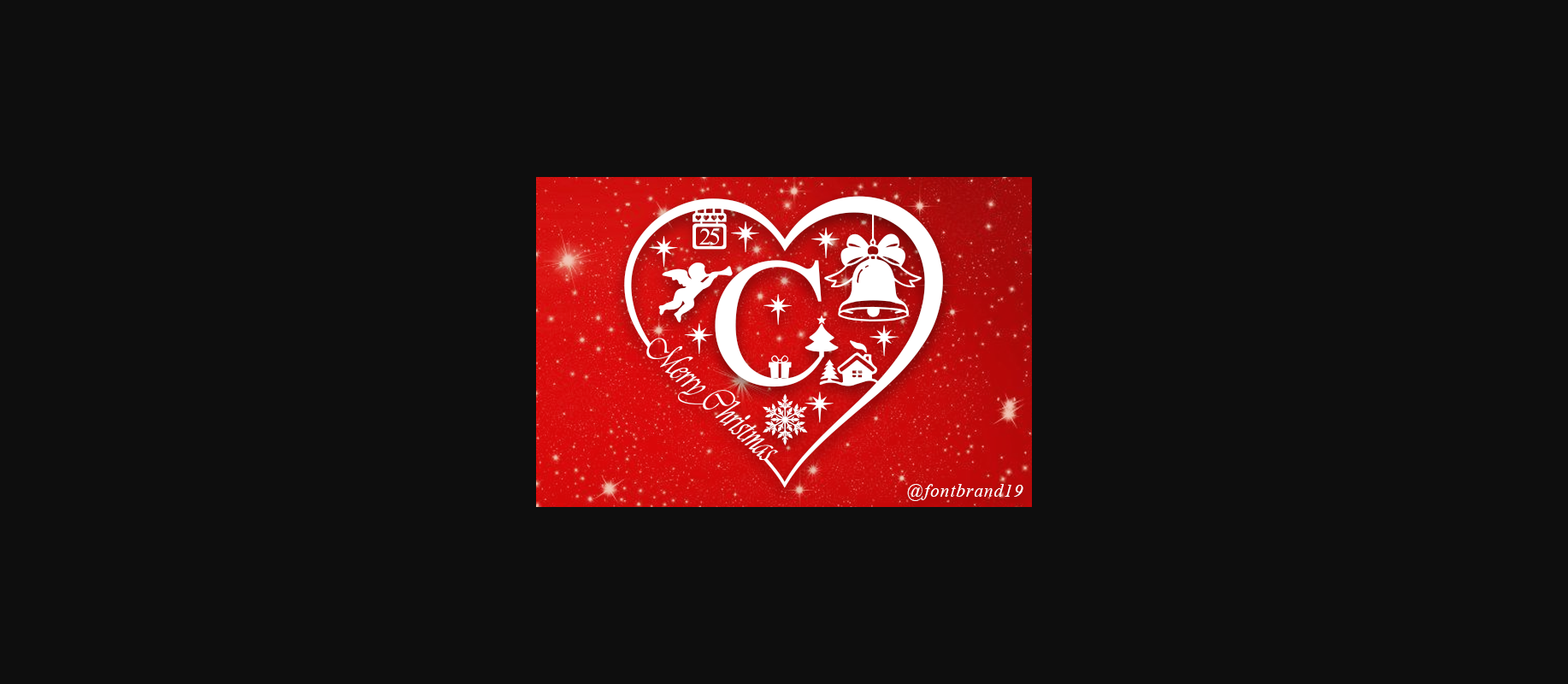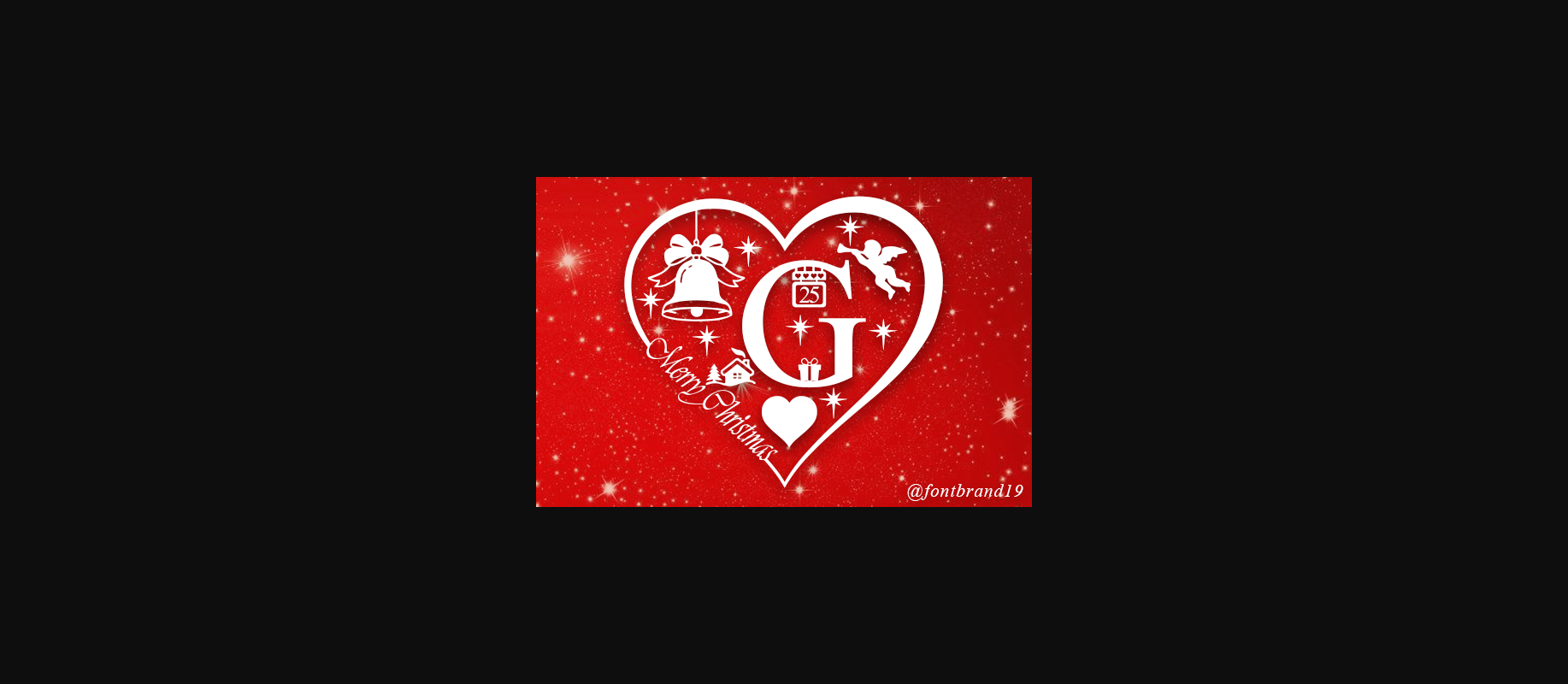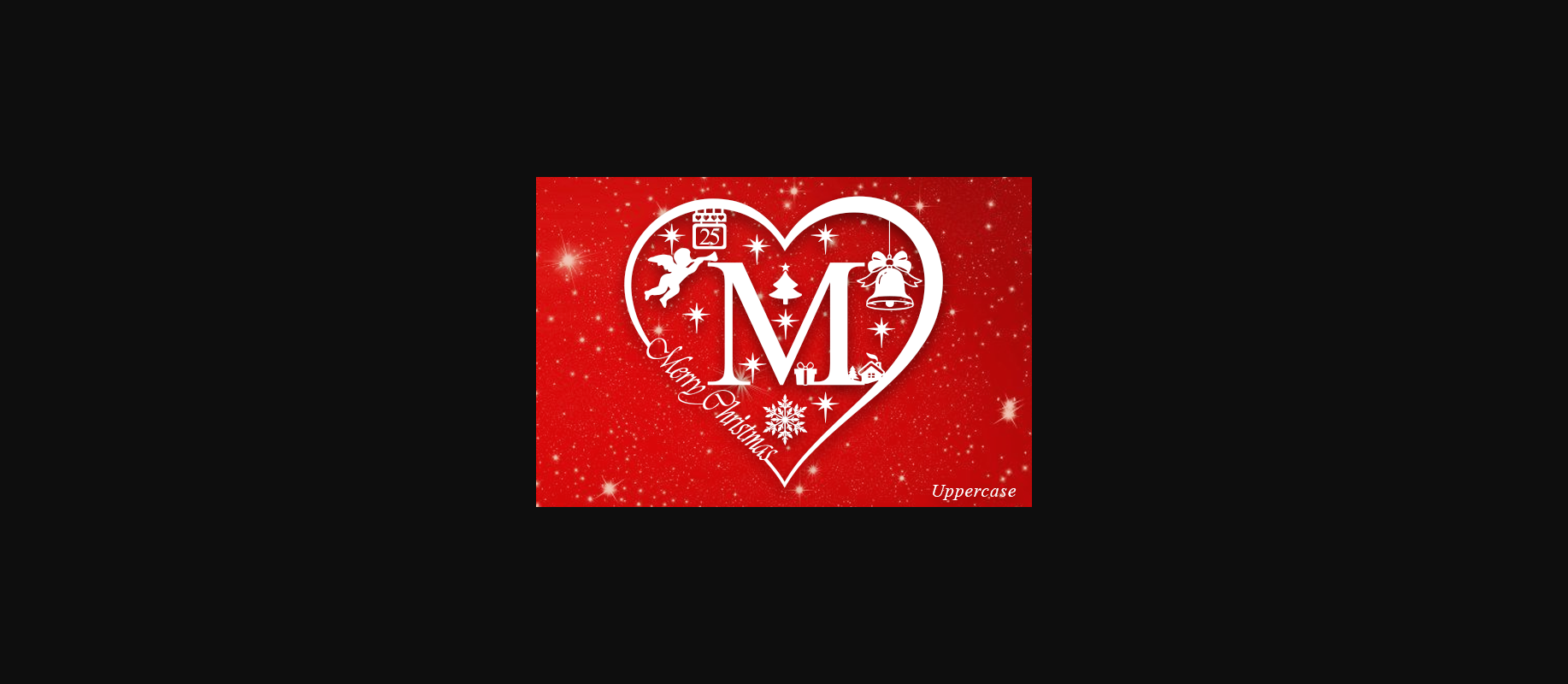
About Love Christmas Monogram Font
Love Christmas Monogram is a festive and very detailed decorative font. It is PUA encoded which means you can access all glyphs and swashes with ease! Fall in love with its incredibly versatile style and use it to create spectacular designs!